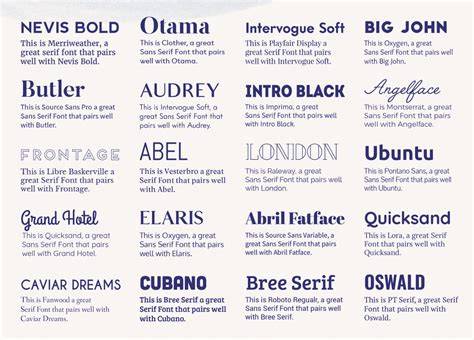
Tips For Pairing Fonts Together In 2023
What Is Font Pairing?
Font pairing is a process of carefully selecting two or more typefaces that work together harmoniously. It’s an essential design skill for any graphic designer. By combining font families, designers can create contrast and harmony in their design projects. A successful font combination will ensure that the typeface is easy to read, looks balanced, and conveys the right tone and message.
What Makes A Good Font Combination?
A good font combination is one that creates contrast while still looking balanced. Contrast is important because it creates visual interest and helps highlight different parts of the design. The contrast can be created by combining typefaces that have different weight, width, and style.
For example, you might use a bold sans serif font for the headlines and a light serif font for the body copy. Or you could combine a script font with a serif font for a more elegant look. The key is to find a combination that creates contrast and still looks balanced.
How To Choose Fonts For Your Design Project
When choosing fonts for your design project, there are a few things to keep in mind. First, consider the overall style and tone of your project. If you’re working on a modern website, you might want to use modern typefaces like sans serifs. If you’re designing a vintage poster, you might want to use a classic serif font.
Next, think about the purpose of your project. Are you designing a website? A logo? A poster? Each type of project requires different typefaces. For example, a website should use typefaces that are easy to read on screens. A logo should use typefaces that are recognizable and will stand out.
You should also consider the size of your project. Smaller projects, like logos and posters, can use more ornate typefaces. Larger projects, like websites, should use simpler typefaces so that they are easier to read.
Finally, consider the color palette of your project. Some colors work better with certain typefaces. You should try to find a font that complements the colors in your project.
Tips For Pairing Fonts Together
Once you’ve chosen the typefaces for your project, it’s time to start pairing them together. Here are a few tips to help you create successful font combinations:
- Start with one typeface and use it as the base. Then choose a second typeface that is similar in style but has a different weight or width.
- Choose typefaces that have similar x-heights. This will ensure that the typefaces look balanced when paired together.
- Combine a serif font with a sans serif font for a classic look.
- Use script fonts sparingly. They can be difficult to read and should only be used for small sections of text.
- Don’t be afraid to experiment. Try different combinations and see what works best for your project.
Font pairing can be a tricky process, but with a little practice, you can find the perfect combination for your design project. Start by considering the overall style and tone of your project, then choose typefaces that complement each other. Finally, experiment with different combinations to find the perfect font pairing. With these tips, you’ll be able to create beautiful, balanced designs in no time!